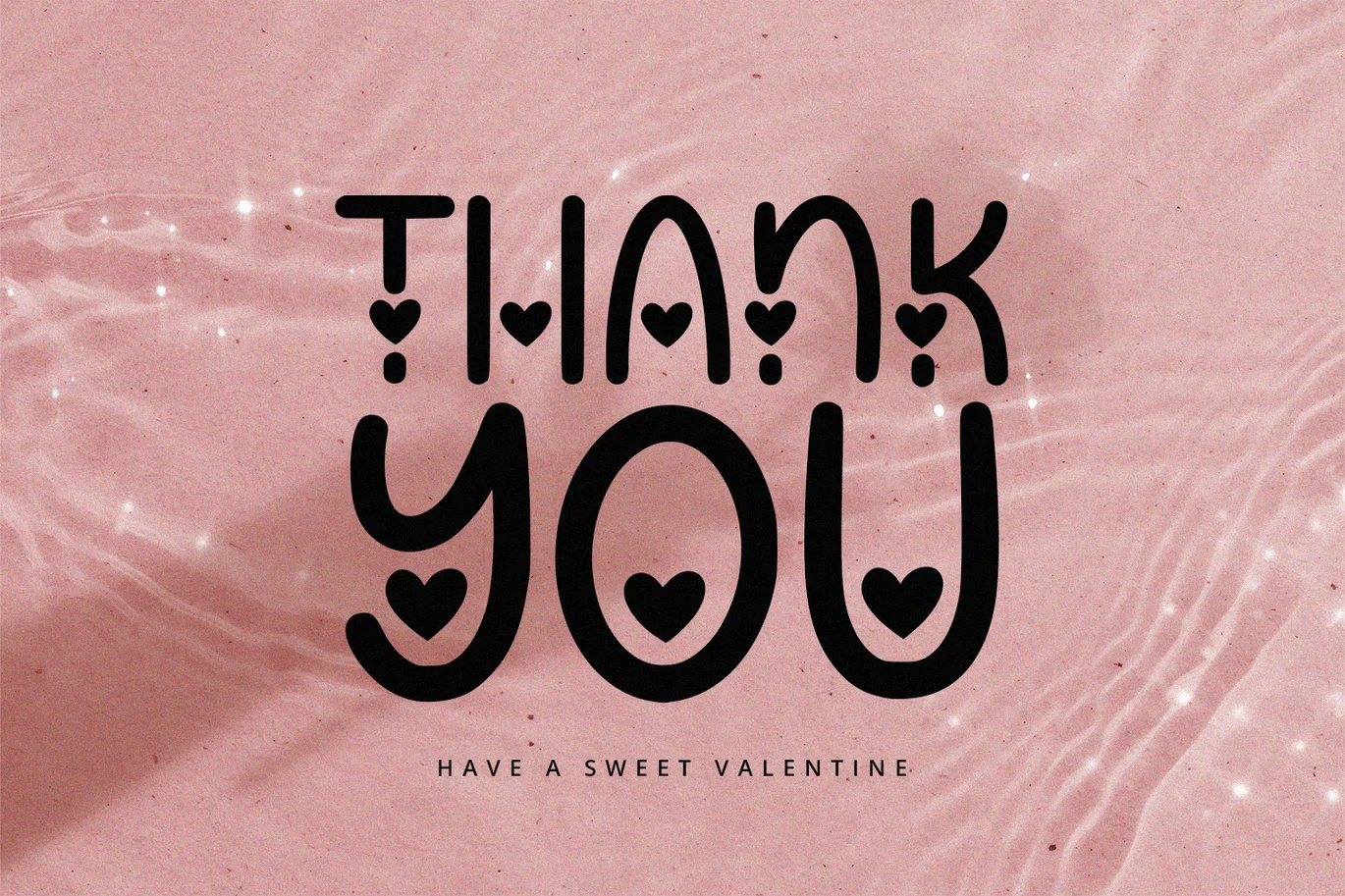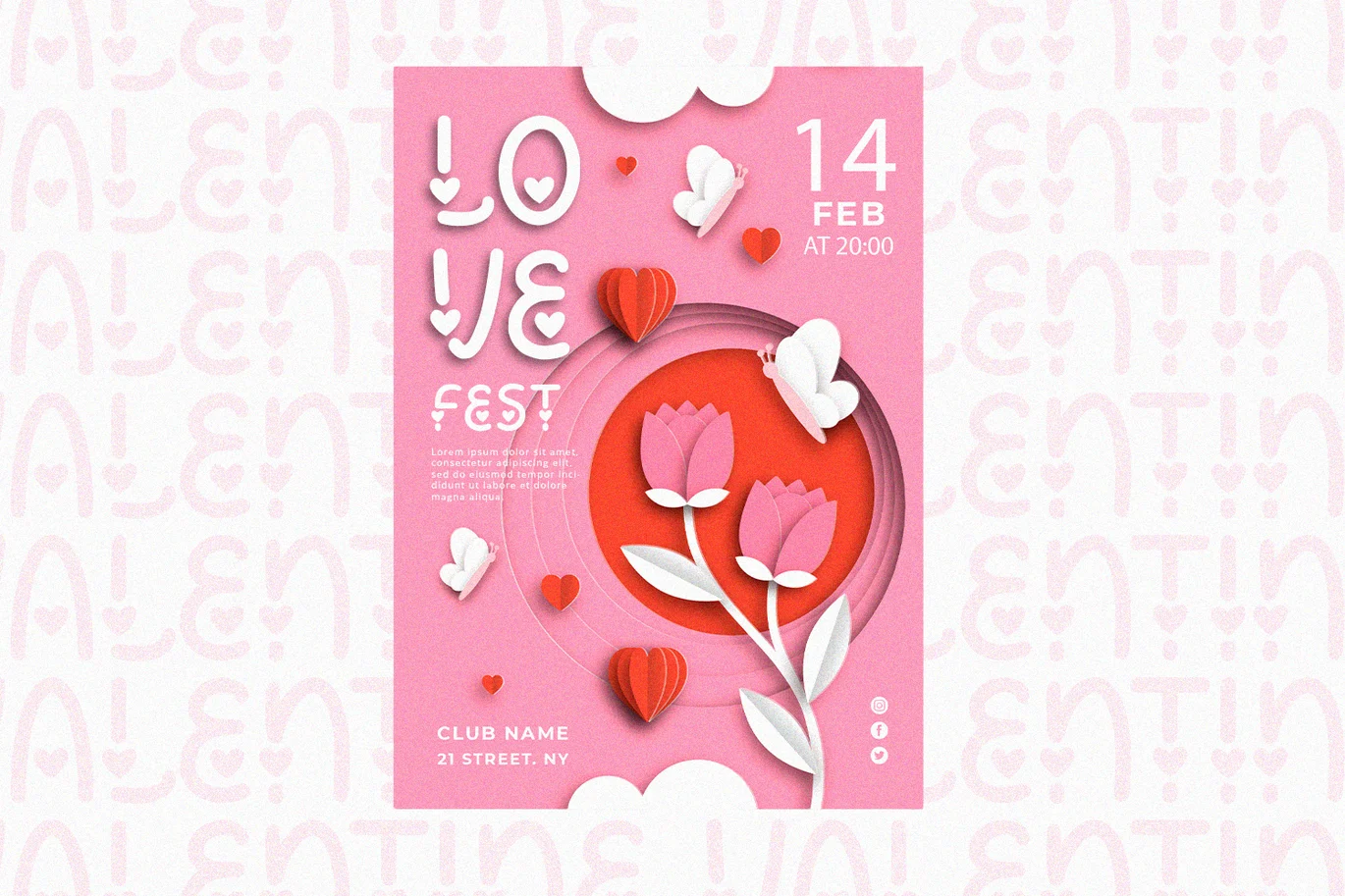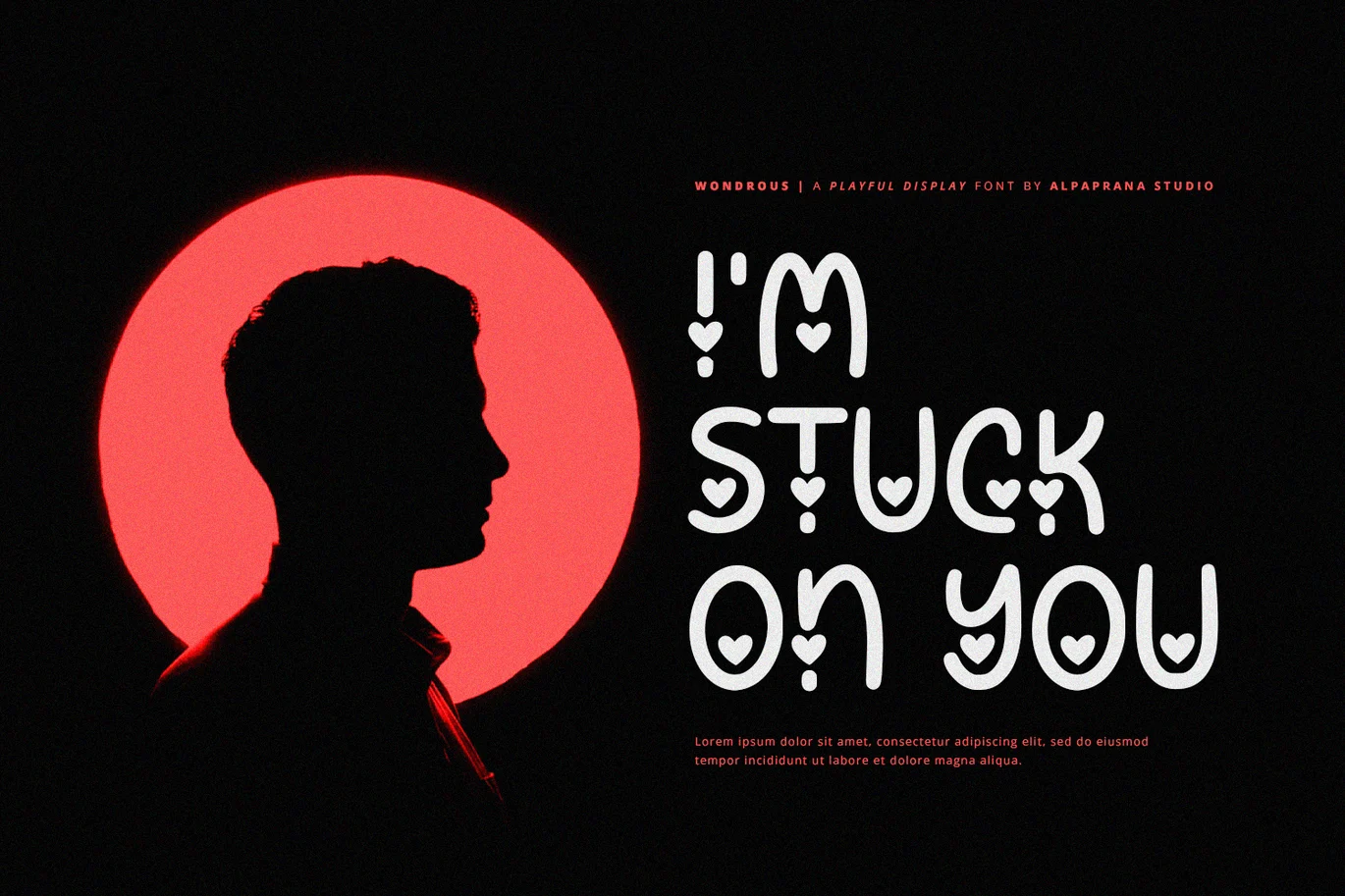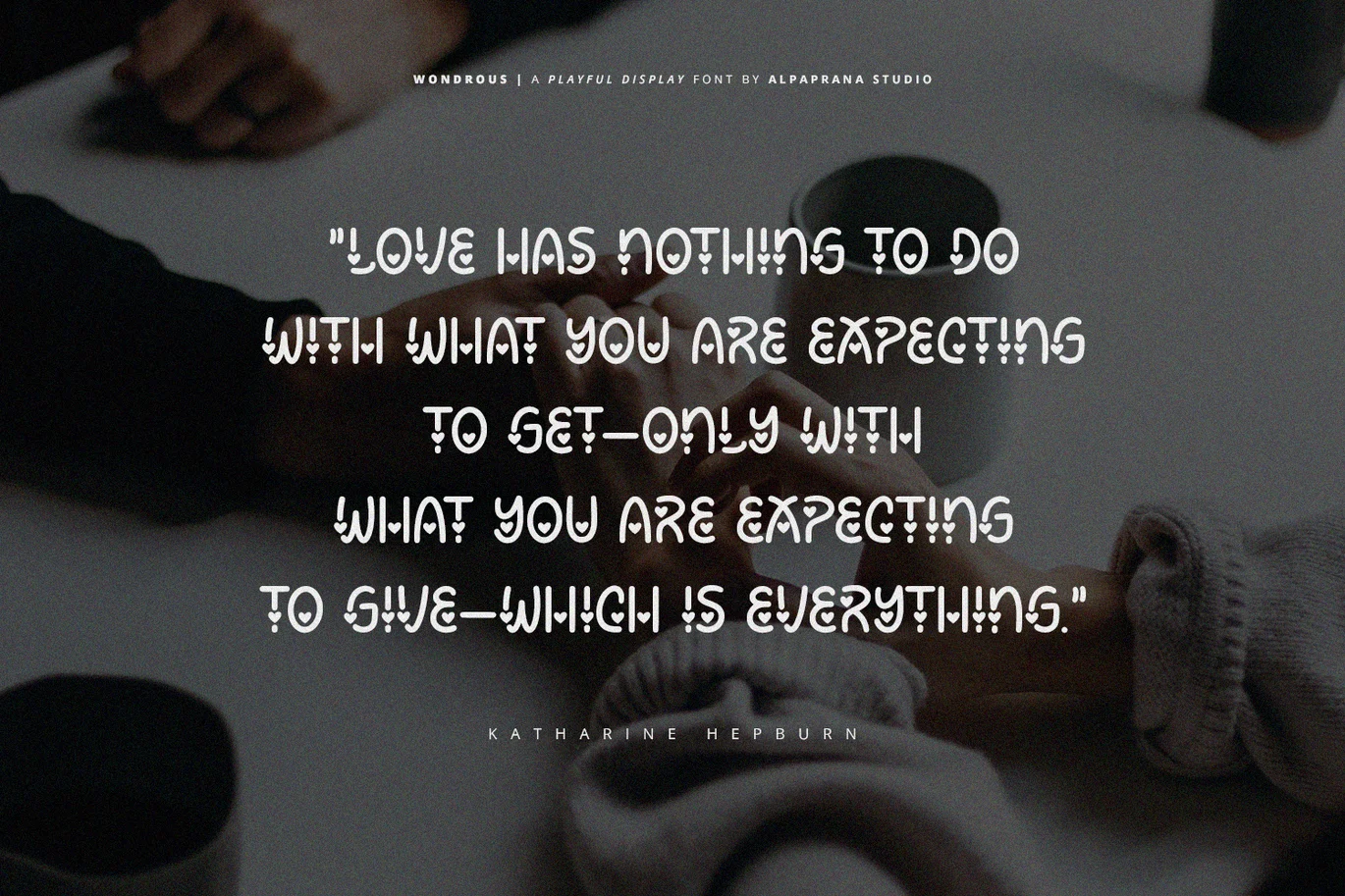
Wondrous Font
Wondrous is a display font with romantic and modern feels.
- Numerals
- Punctuations (OpenType Standard)
- Accents (Multilingual Characters)
- Ligatures and Alternative Style Stylistic Set